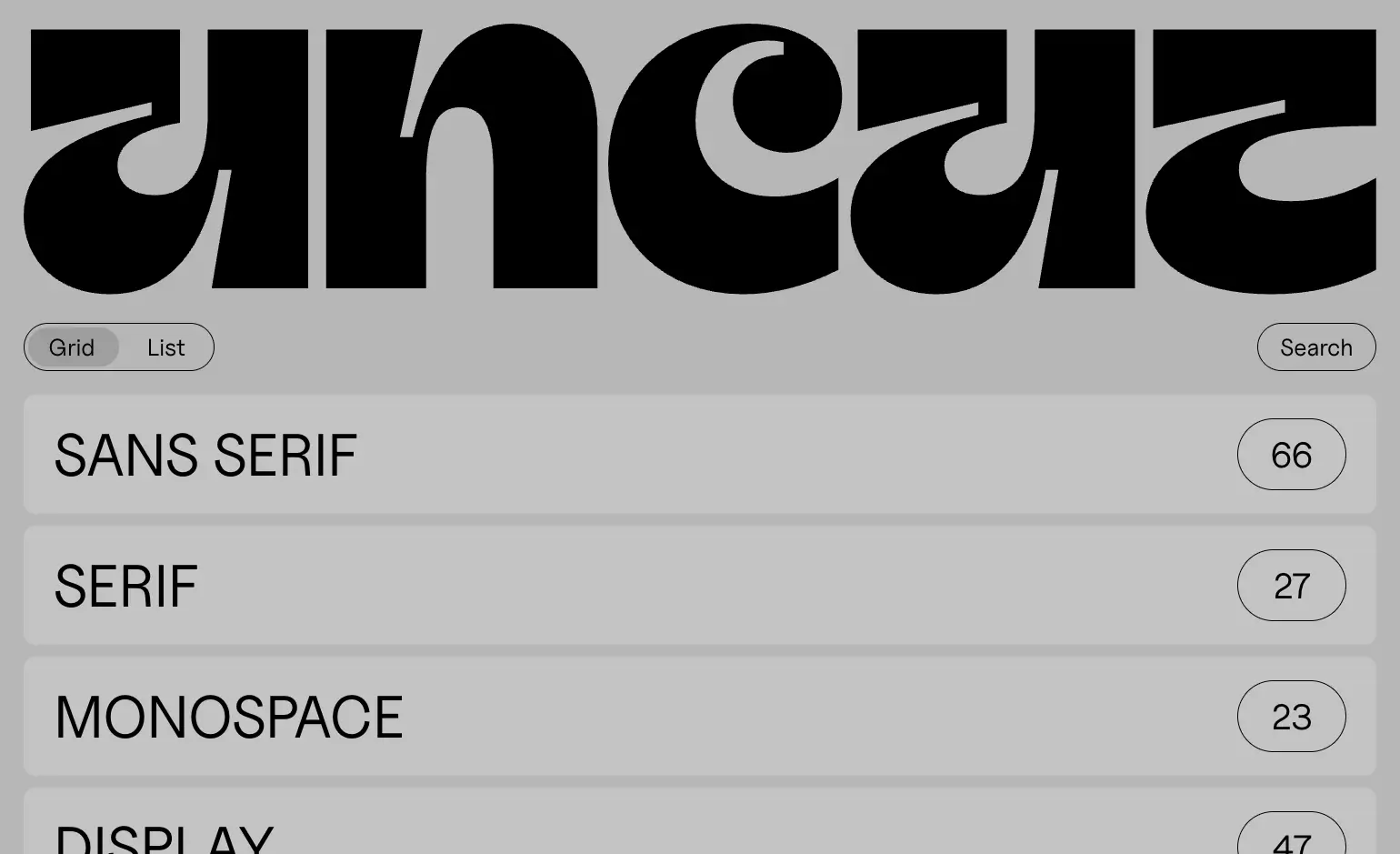
UNCUT.wtf
UNCUT.wtf is a free typeface catalogue featuring contemporary fonts.
UNCUT.wtf offers a vast collection of somewhat contemporary typefaces, free for commercial use. With 163 typefaces, it focuses on display, monospace, serif, and sans serif fonts. Explore via grid or list view, and benefit from the site's commitment to privacy with no cookies used.